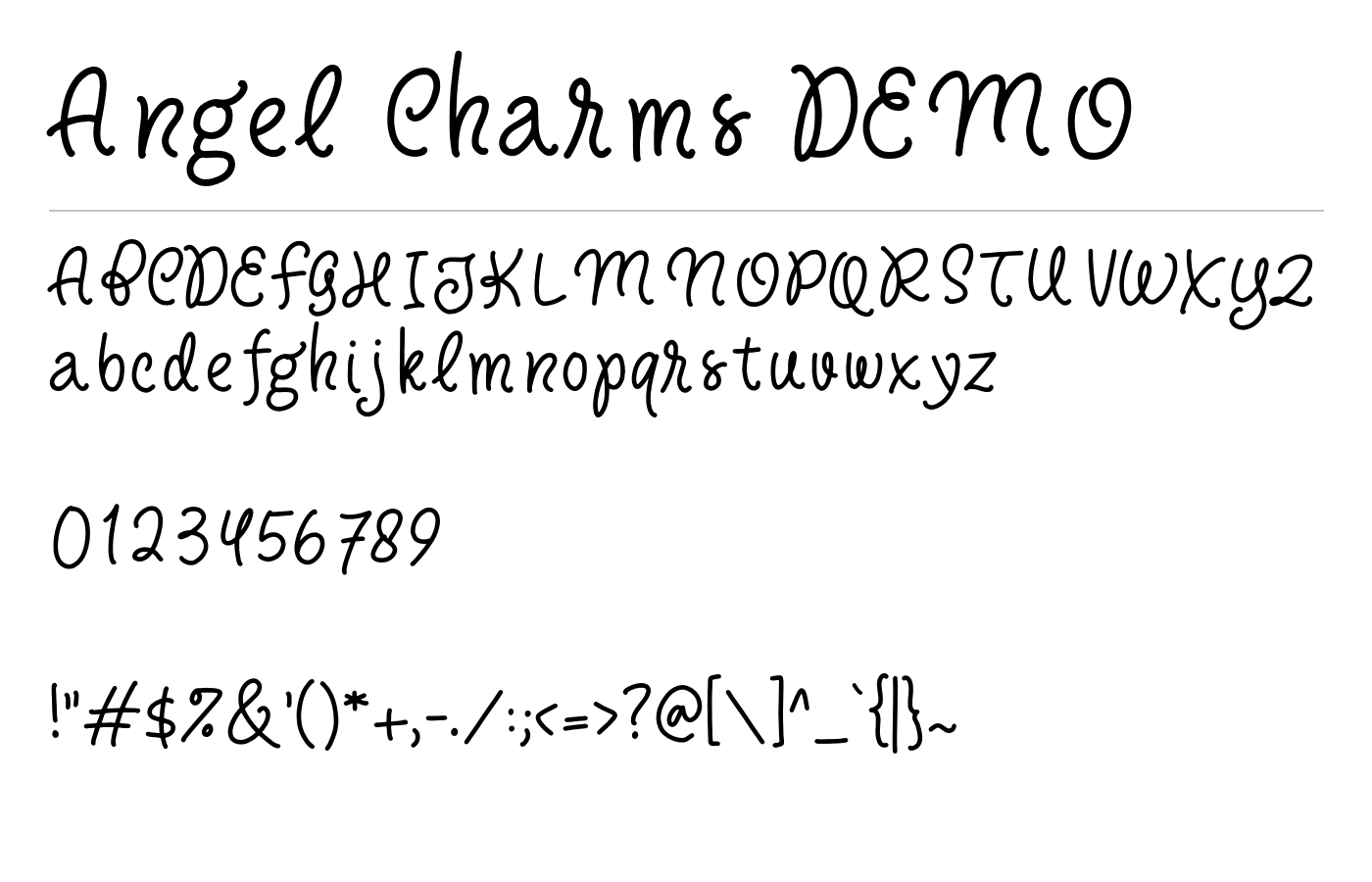
Angel Charms DEMO is a playful, handwritten script font with a casual, whimsical feel. Its light weight and slightly condensed letterforms, paired with charming loops and curls, give it a friendly and informal personality perfect for creative, personal, or youthful branding. This font works well for logos, invitations, and any design seeking a warm, approachable touch.
Angel Charms DEMO Font
About Angel Charms DEMO Font